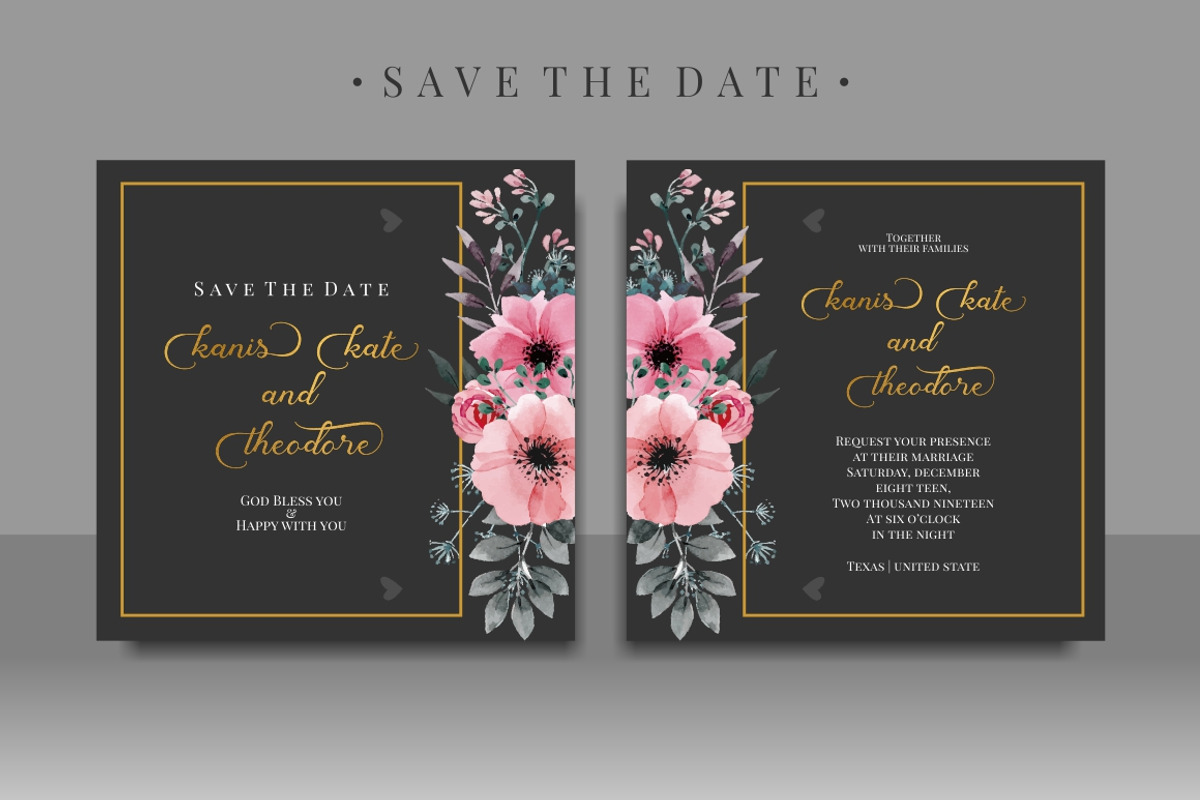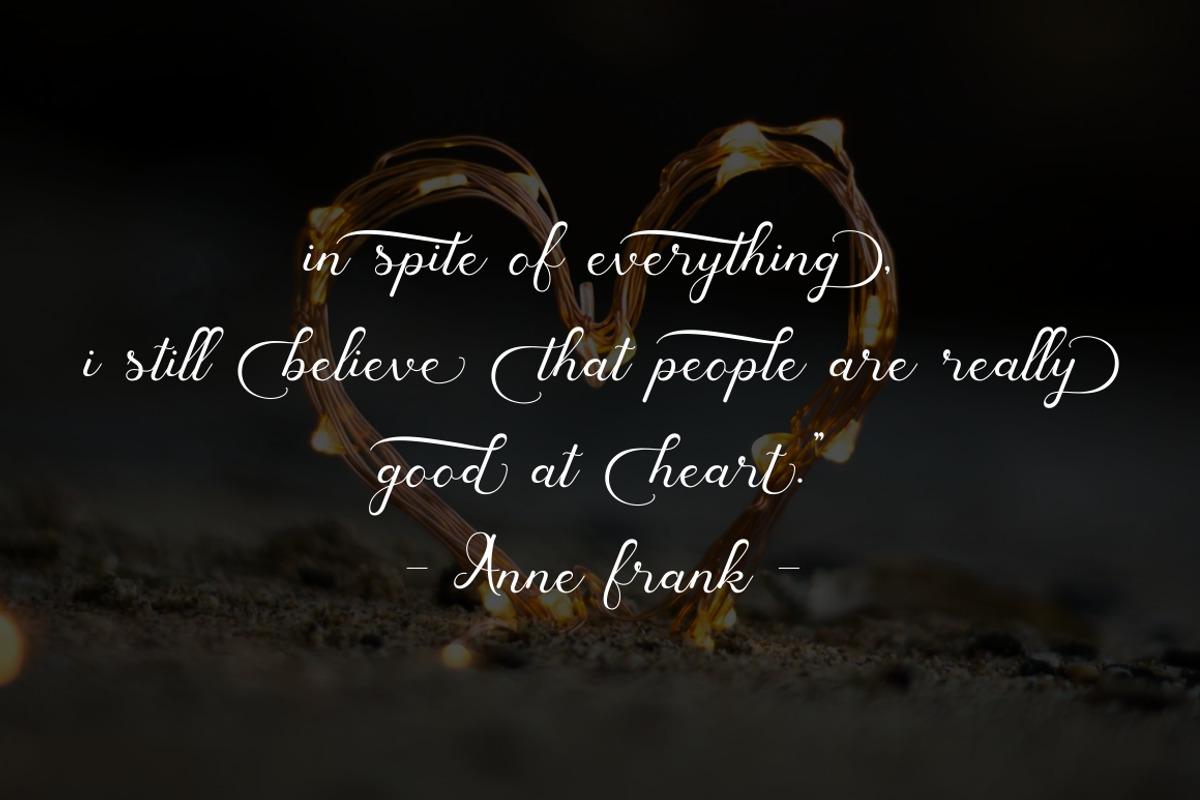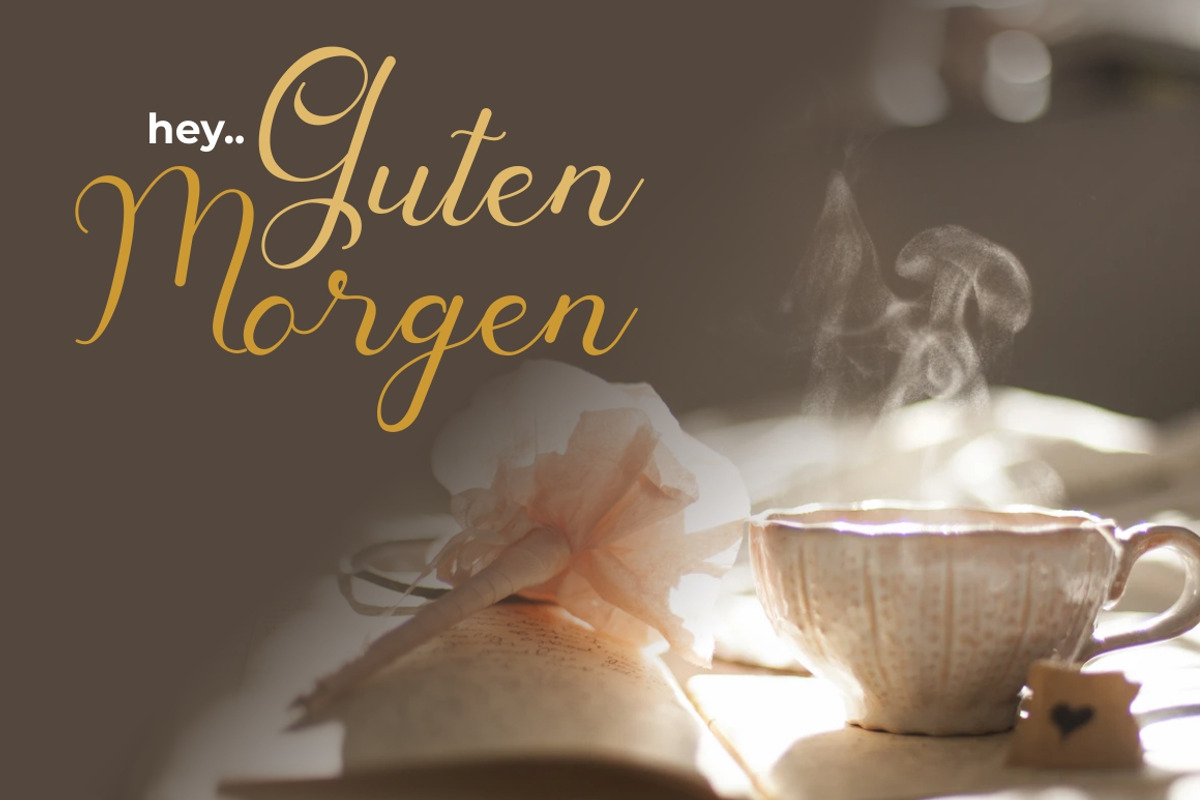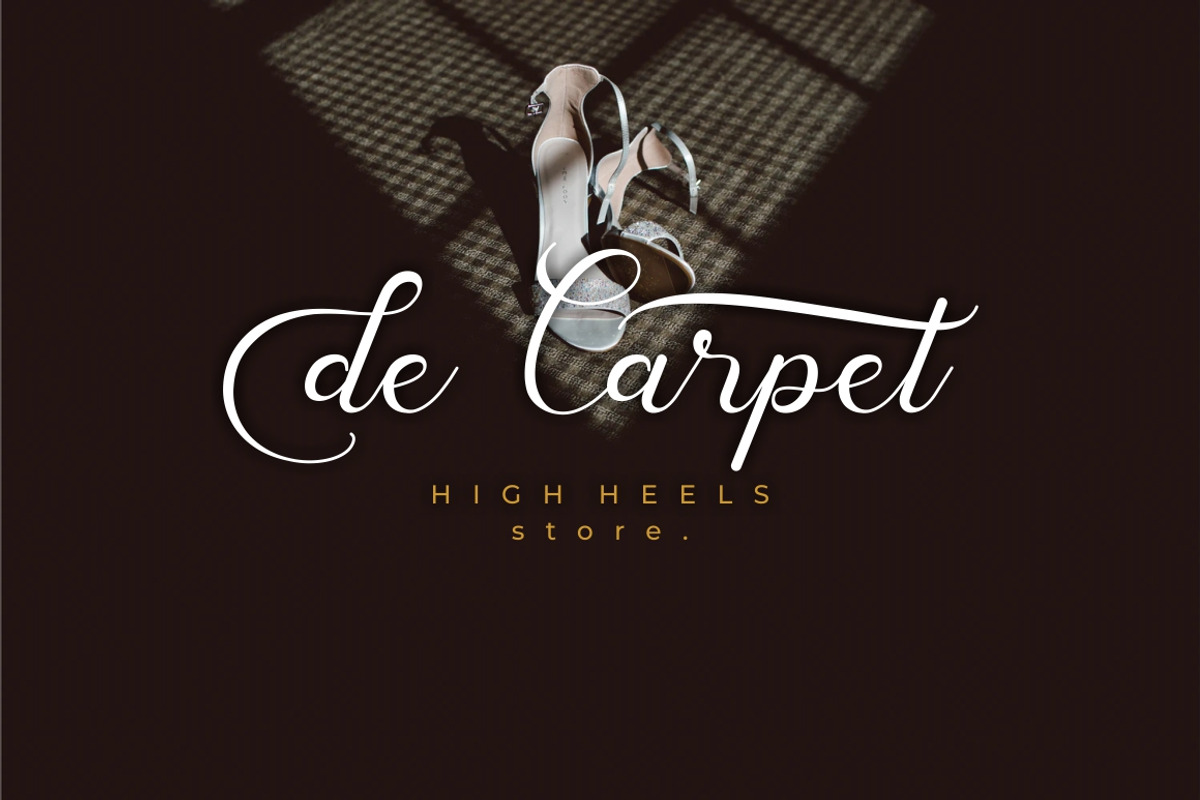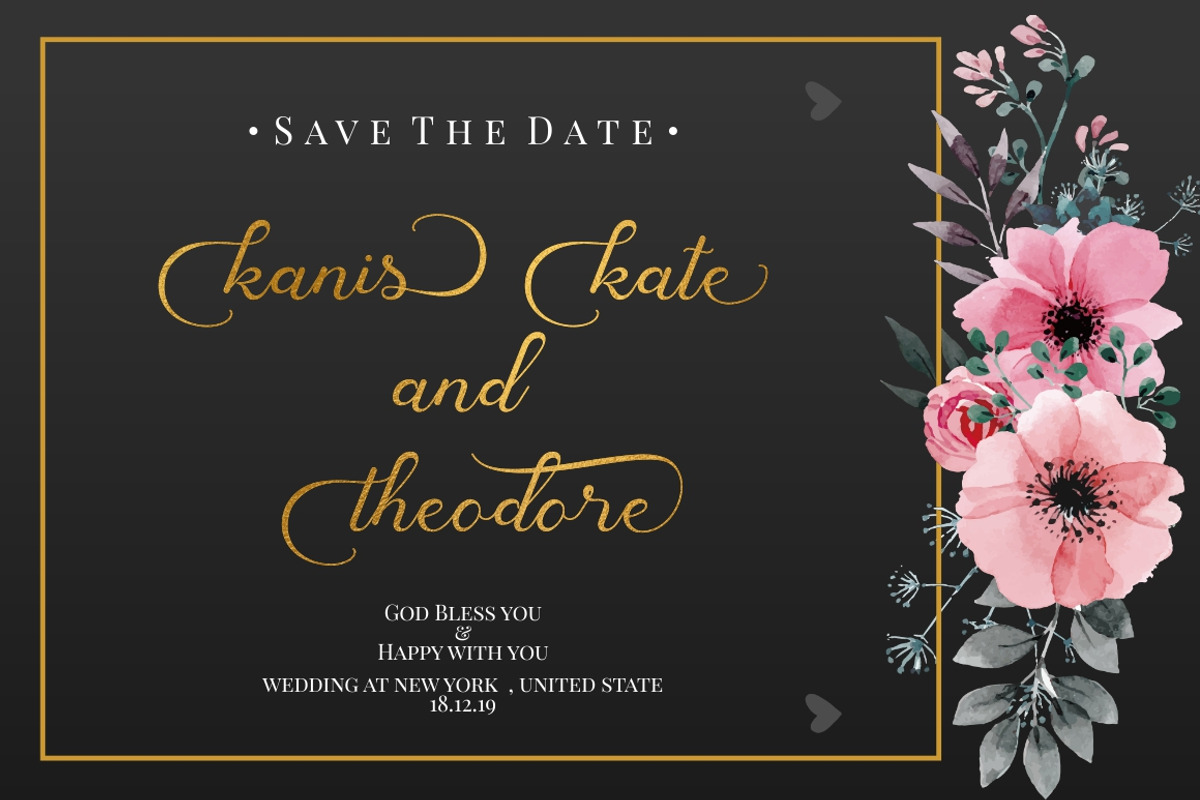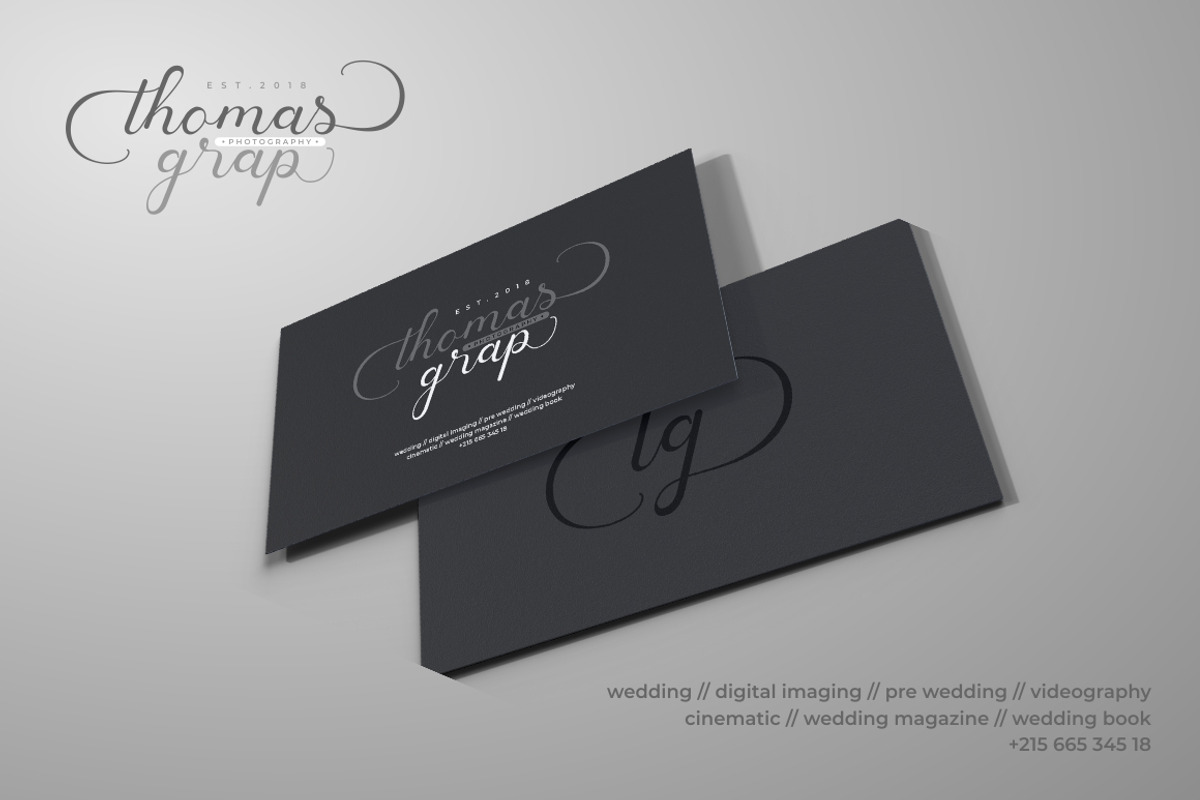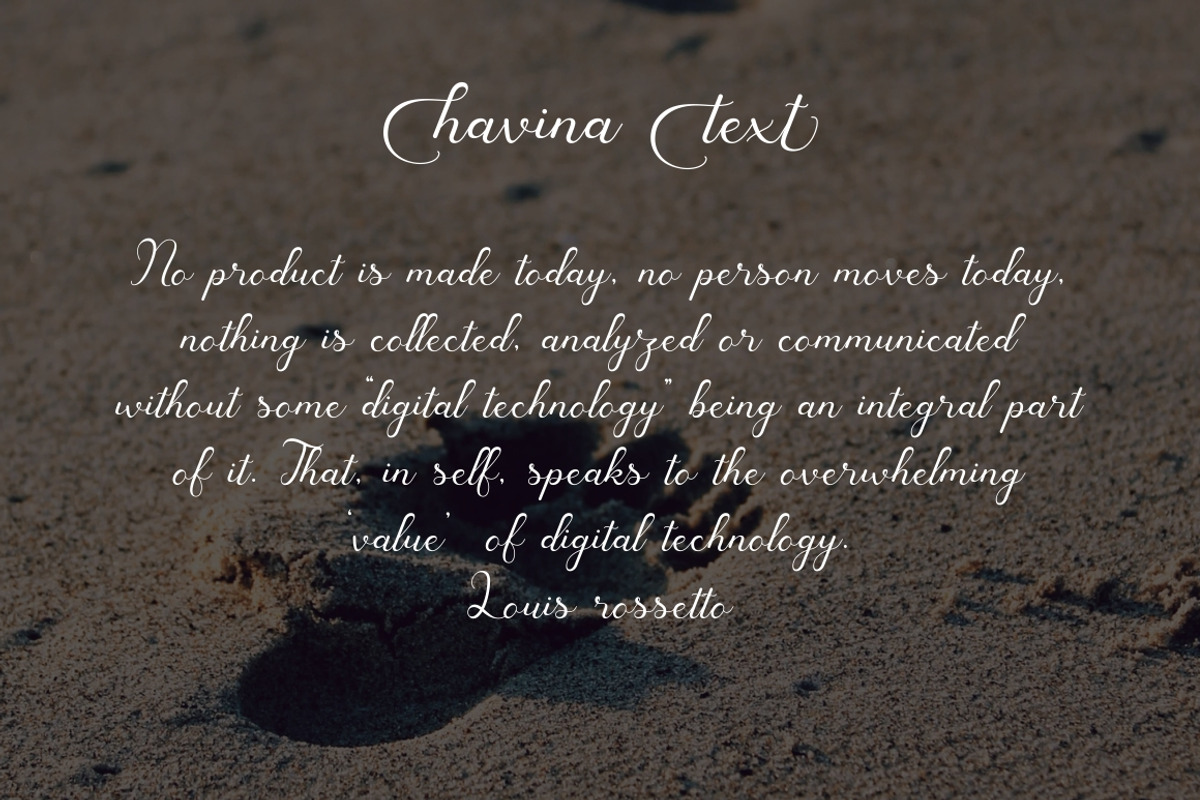
Havina Font
Introducing Havina a modern script font with a lot of alternates character and unique flourish. This font is perfect for logotype creation, lettering compositions, wedding invitations, fashion projects, book design cover, magazines typography, cards, packagings, posters, branding and more.
Come with Opentype feature with a lot of alternates, its help you to make great lettering. This font is also support multi language.
Havina Font by PutraCetol Studio fits naturally into Branding, posters, packaging, typography.